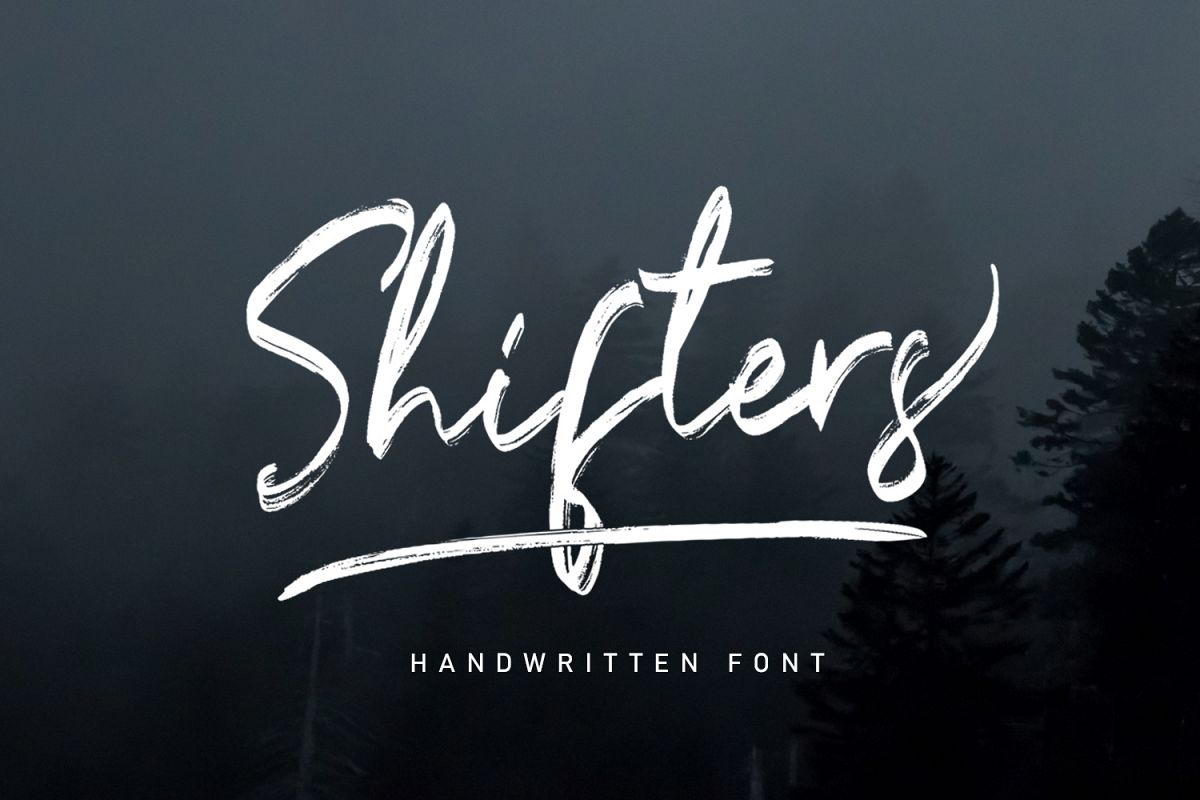
Shifters Handwritten Typeface Brush
Shifters
Shifters Swash
Shifters Handwritten Typeface is a font with distinctive handwritten characters perfect for branding projects, logos, wedding designs, media posts, advertisements, product packaging, product designs, labels, photography, watermarks, invitations, stationery, and any project who need handwritten dishes.